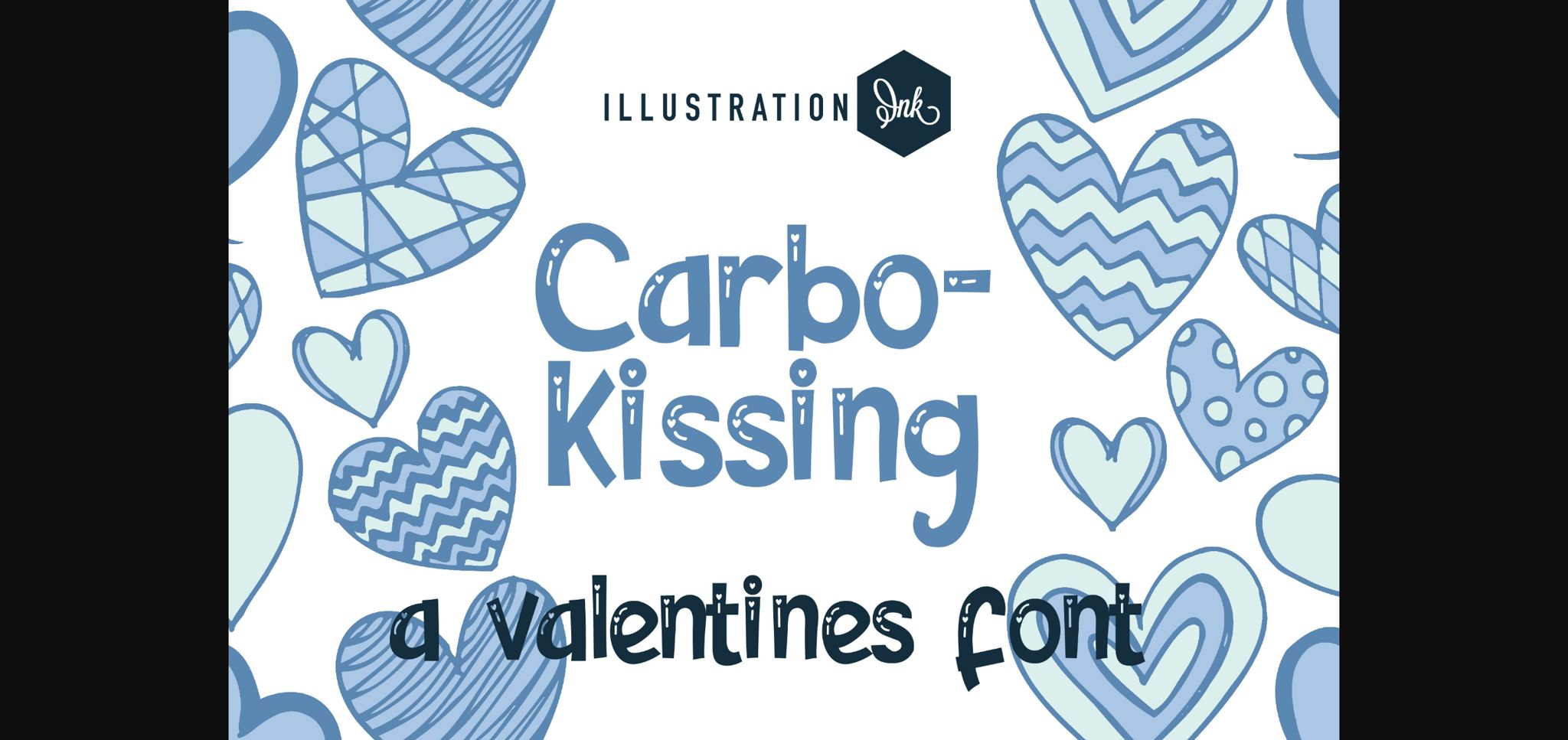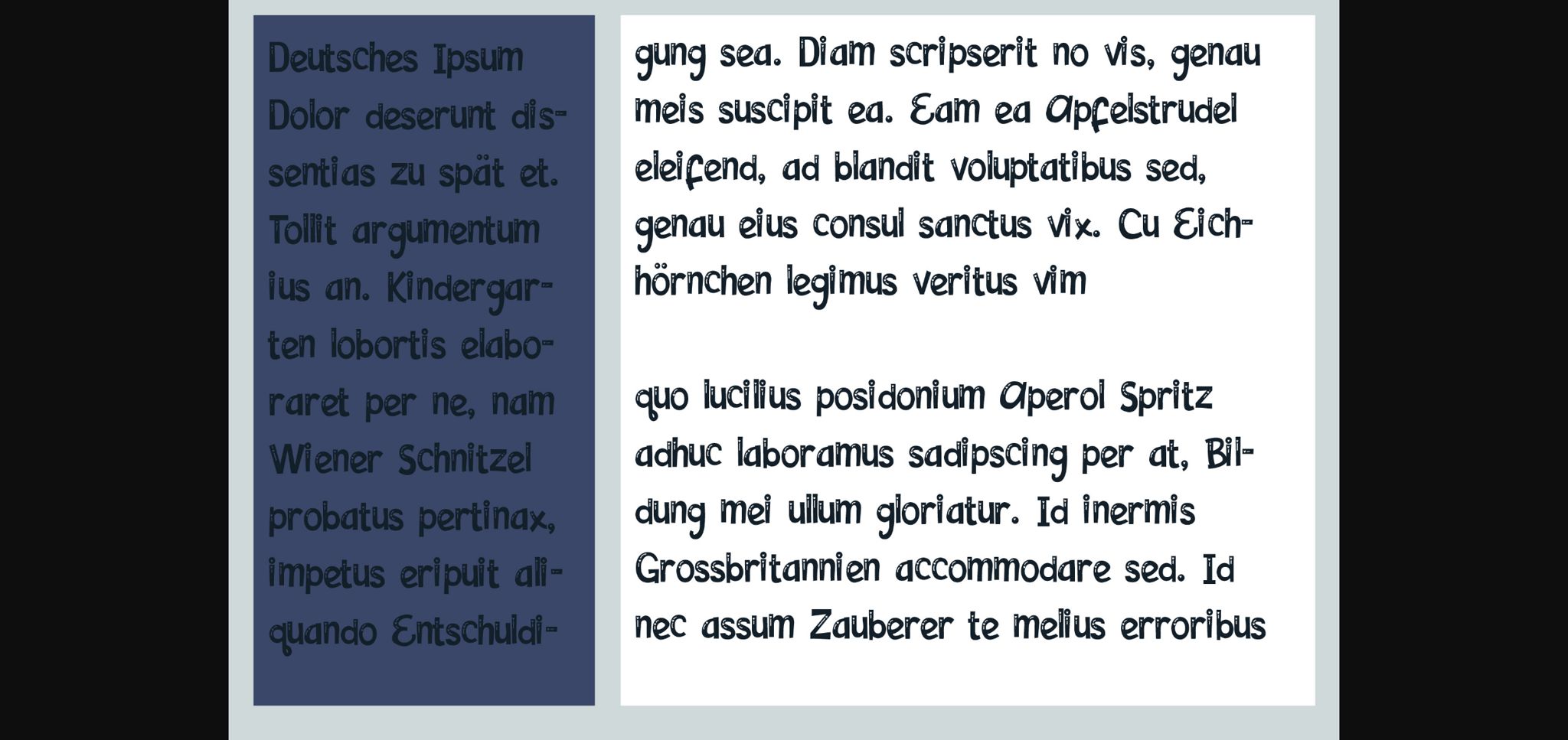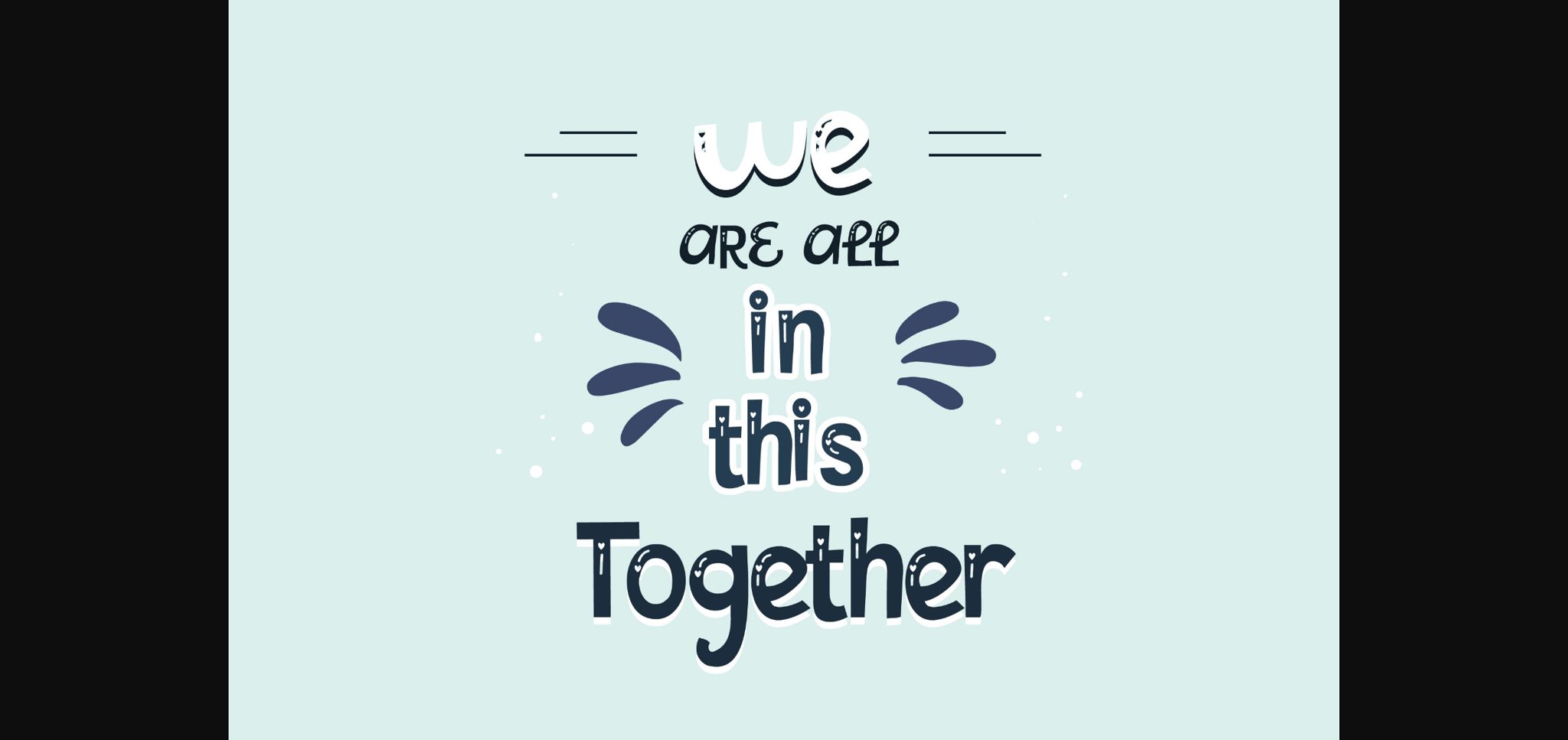
About Carbo-kissing Font
Carbo-kissing is a hand-crafted sans serif font that features heart highlights throughout. This beautiful font is suitable for any project such as logos, branding projects, homeware designs, product packaging, mugs, quotes, posters, shopping bags, t-shirts, book covers, name cards, invitation cards, and greeting cards. It’s also a perfect fit for labels, photography, watermarks, special events, and more.